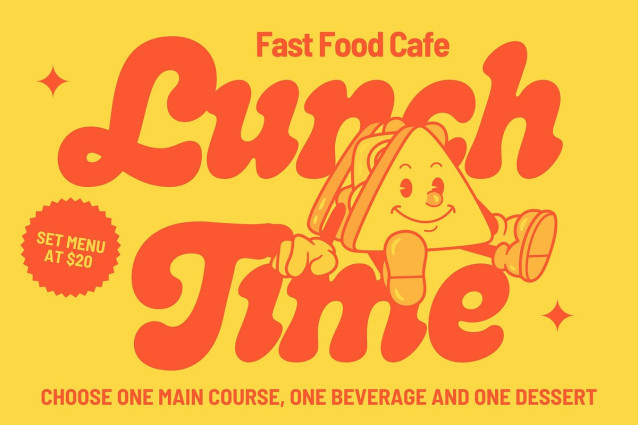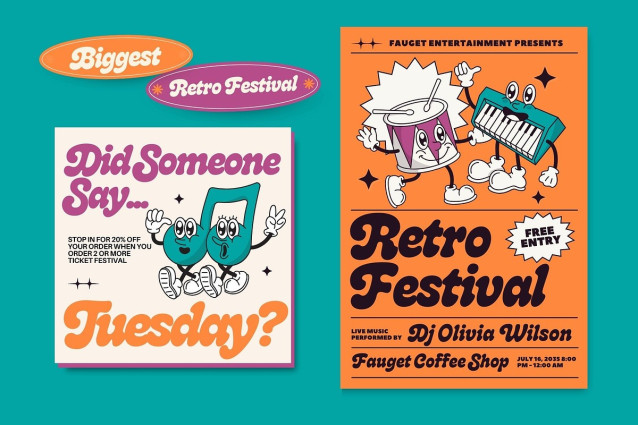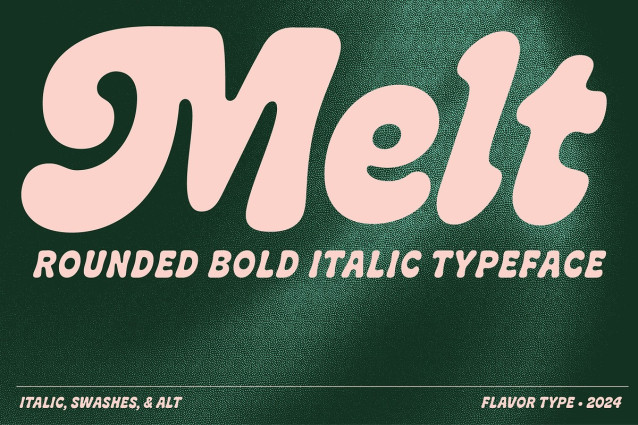
Melt Swashes Font
Melt Swashes Font a captivating and versatile font that seamlessly blends boldness with soft, rounded curves, exuding an irresistible charm. This font is a harmonious fusion of cursive elegance, bold confidence, and modern trends, making it perfect for eye-catching headlines that demand attention.